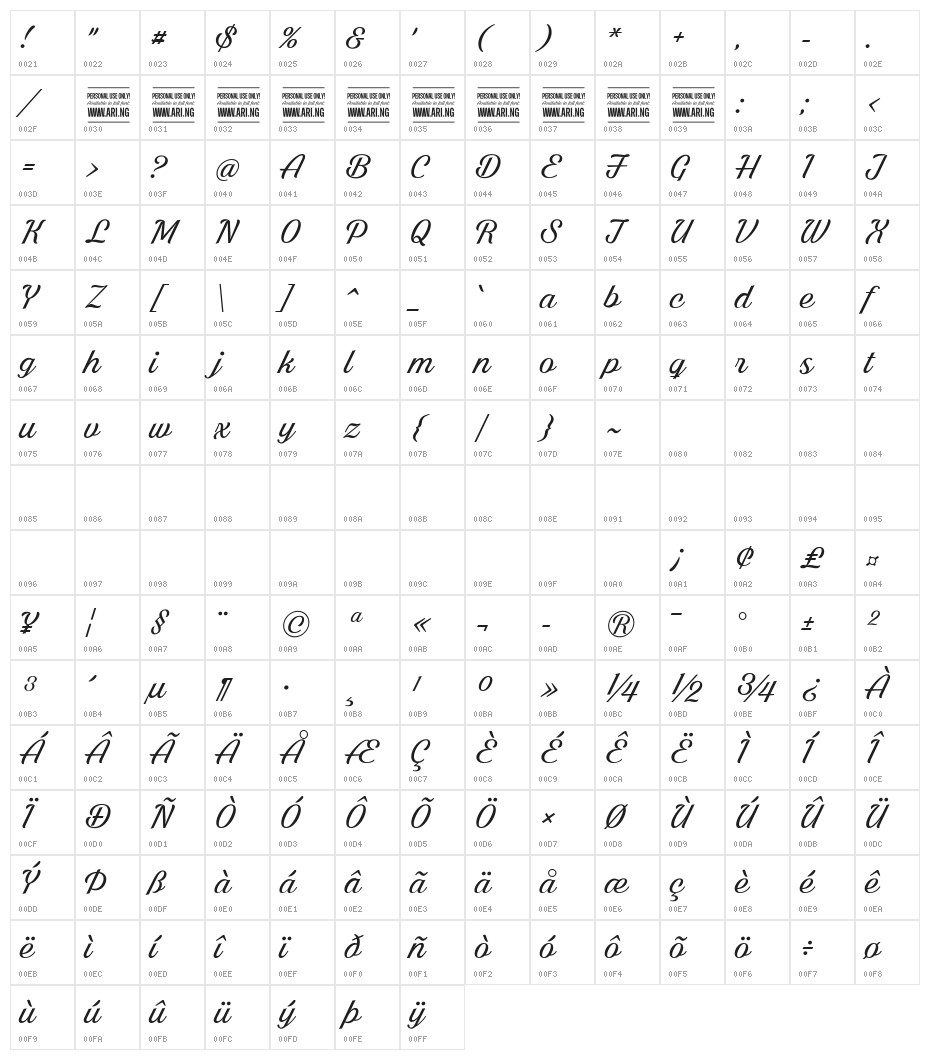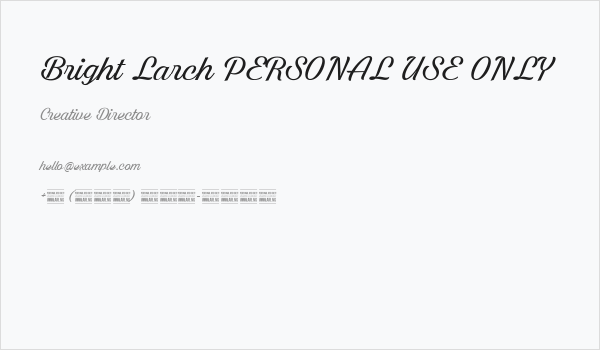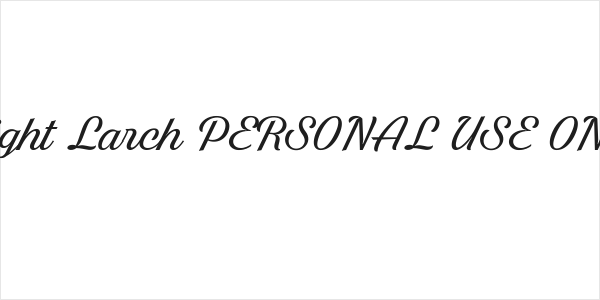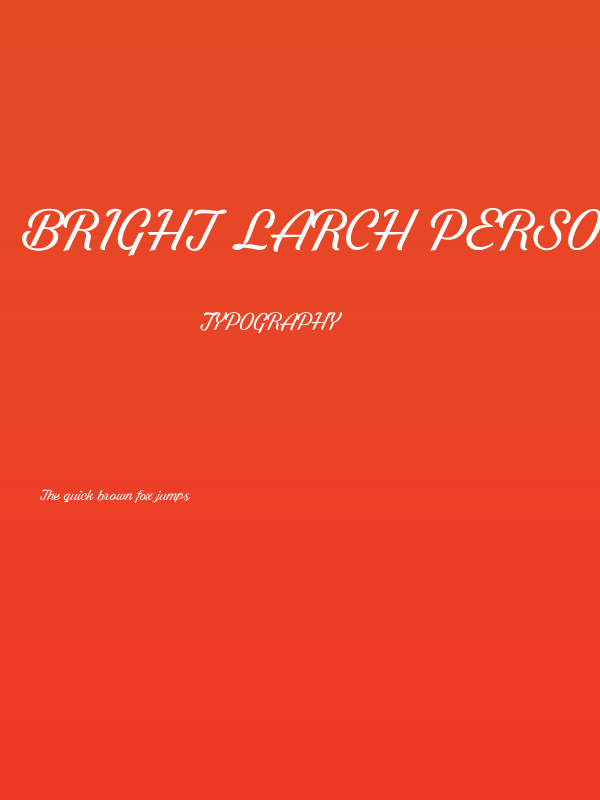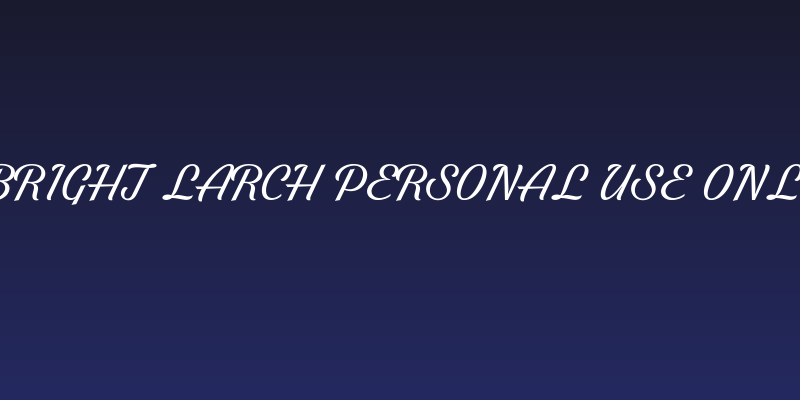
Bright Larch PERSONAL USE ONLY Font
Bright Larch PERSONAL USE ONLY Description
This elegant script font features a flowing, cursive style with a classic touch. The letters are gracefully connected, creating a smooth and continuous line that enhances readability while maintaining a sophisticated appearance. The uppercase letters are slightly more ornate, with subtle flourishes that add a touch of flair. The lowercase letters are more understated, providing a nice balance. The numerals and special characters are designed to match the overall style, ensuring consistency across all text elements. This font exudes a sense of elegance and refinement, making it suitable for formal and decorative applications.
| Proposed Projects | Ideal for wedding invitations, elegant branding, greeting cards, and decorative signage. |